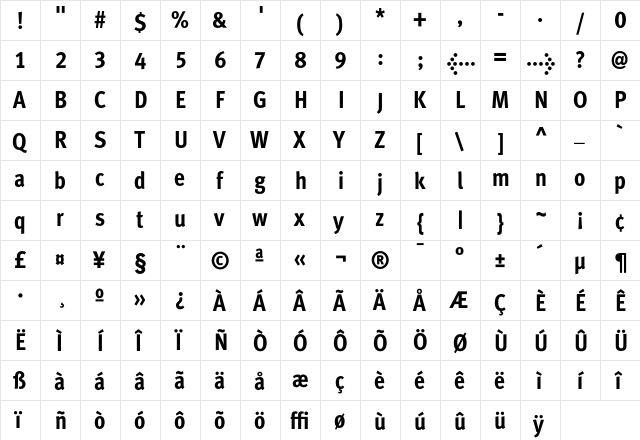
MetroMeta CondBold
Design Context for MetroMeta Typeface
MetroMeta offers clean, dependable letterforms without strong stylistic allegiance, making it a practical choice for designers who need flexibility. Its bold stroke weight gives it real presence on the page. Its narrow stance lets it pack a punch even in space-constrained designs.